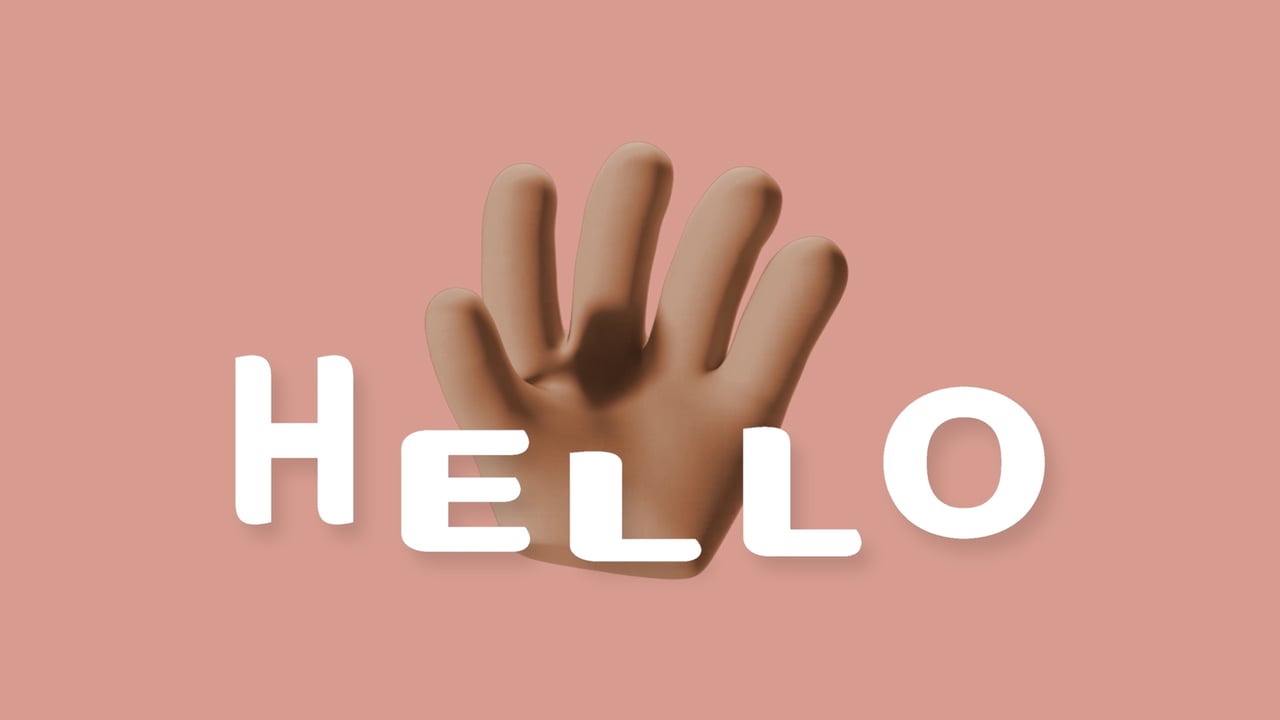
Free Animated Typeface
Bold, bouncy, and impossible to ignore — these animated jumping titles bring serious energy to any project.
This motion graphics template features playful jumping title animations that are fully customizable to match your creative vision. Whether you're designing for social media, commercials, campaigns, or branding, this template flexes to fit your needs.